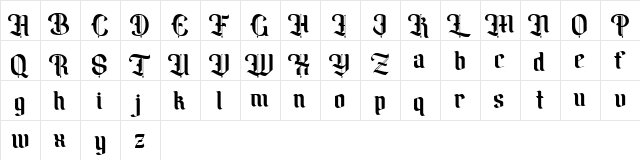
Amika Blackletter Free Font Regular
Design Context for Amika Blackletter Free Font Typeface
Amika Blackletter Free Font channels the dramatic heritage of Fraktur and Gothic scripts, bringing a sense of historical gravitas to any design.
A natural fit for music packaging, gothic editorial design, and any project that needs historical weight.
Font Pairing: Pair with a clean neutral sans-serif for body copy to let Amika Blackletter Free Font's character lead without overwhelming the composition.
Pro Tip: Reserve Amika Blackletter Free Font for display and logo use — pair it with a clean sans-serif for body copy to prevent the composition from feeling oppressive.